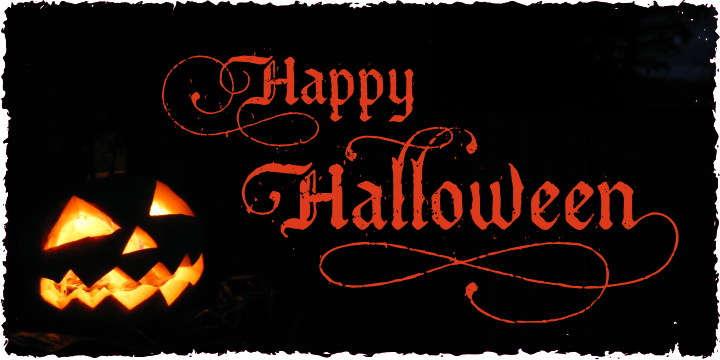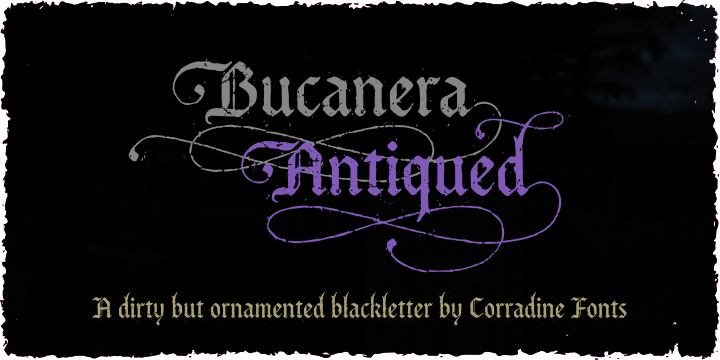
Bucanera Antiqued
Font Family by Corradine Fonts
Bucanera Antiqued is the black ship of Bucanera's family, sure you will use it in any dark or dirty project. Try the Open Type version to reach its numerous swashes, flourished and alternate characters.